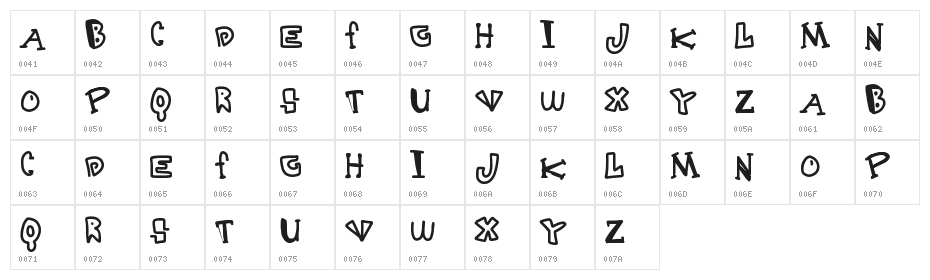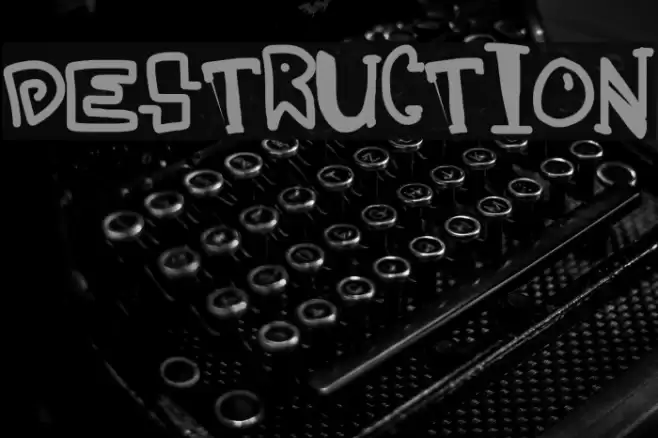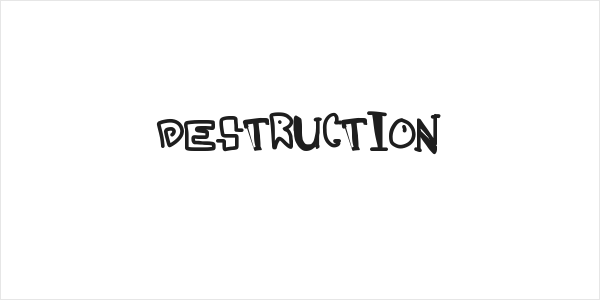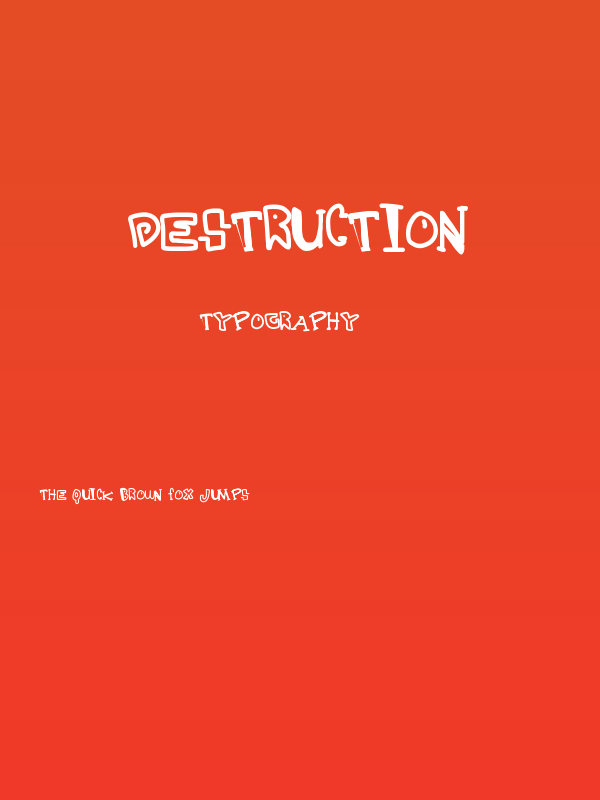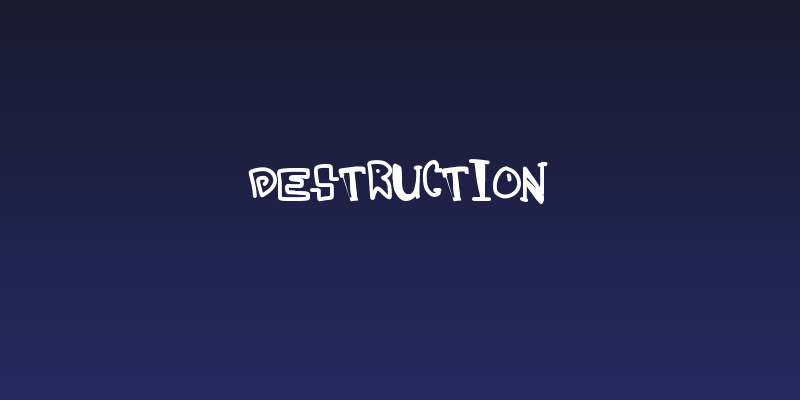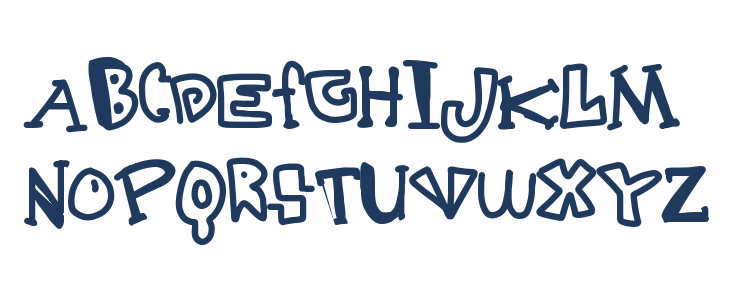
destruction Font
destruction Description
This font features a playful and quirky design with exaggerated curves and unique character shapes. The uppercase letters are bold and dynamic, each with its own distinct personality. The lowercase letters maintain the whimsical style, offering a cohesive yet varied appearance. The numbers and special characters follow the same playful theme, making them stand out. This font is perfect for projects that require a fun and engaging visual element, such as children's books, playful branding, or creative posters.
| Proposed Projects | Ideal for children's books, playful branding, creative posters, and any project needing a fun visual element. |